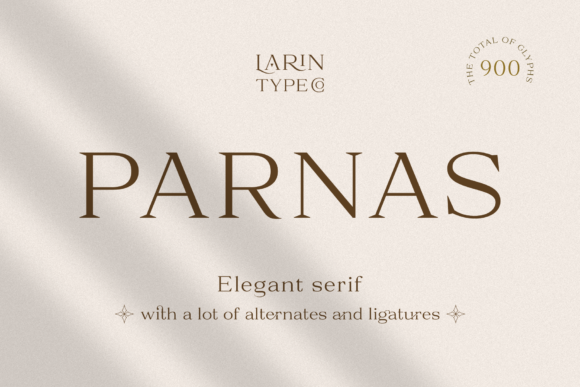
Behold Parnas Font - A Serif Masterpiece for Timeless Elegance
In the realm of typography, where letters dance and words come alive, there exists a serif font of exceptional beauty and versatility: Parnas Font. Its graceful strokes are reminiscent of classical forms, evoking an aura of sophistication and understated elegance.
Parnas Font isn't just a font; it's a journey through time, a testament to the enduring power of classic design. Its smooth lines and sharp serifs exude a timeless charm that transcends trends and fads. Whether you're crafting a timeless logo, composing an elegant invitation, or designing a stunning website, Parnas Font will elevate your words with an air of timeless elegance.
Dive into Parnas' exquisite range of alternative and ligature options. Let your creativity soar as you explore new realms of expression. With Parnas, you hold the power to sculpt the very essence of your design, transforming ordinary text into captivating visual poetry.
Unleash the Boundless Allure of Parnas:
- Embark on a typographic odyssey with Parnas, where classicism and innovation harmoniously intertwine.
- Fall under the spell of its weightless style and intricate weaves, where every letter is a work of art.
- Discover the hidden beauty of long tails, delicate flourishes, and graceful descenders that bring a touch of whimsy to your designs.
- Witness how Parnas transforms ordinary text into a captivating visual symphony, leaving a lasting impression on your audience.